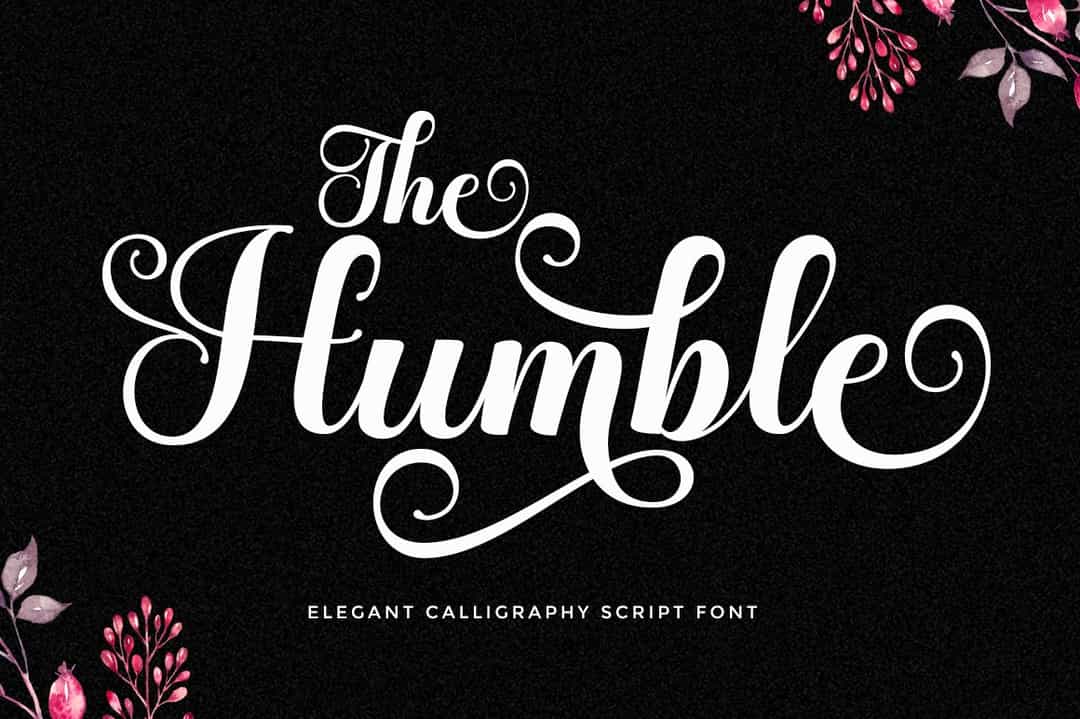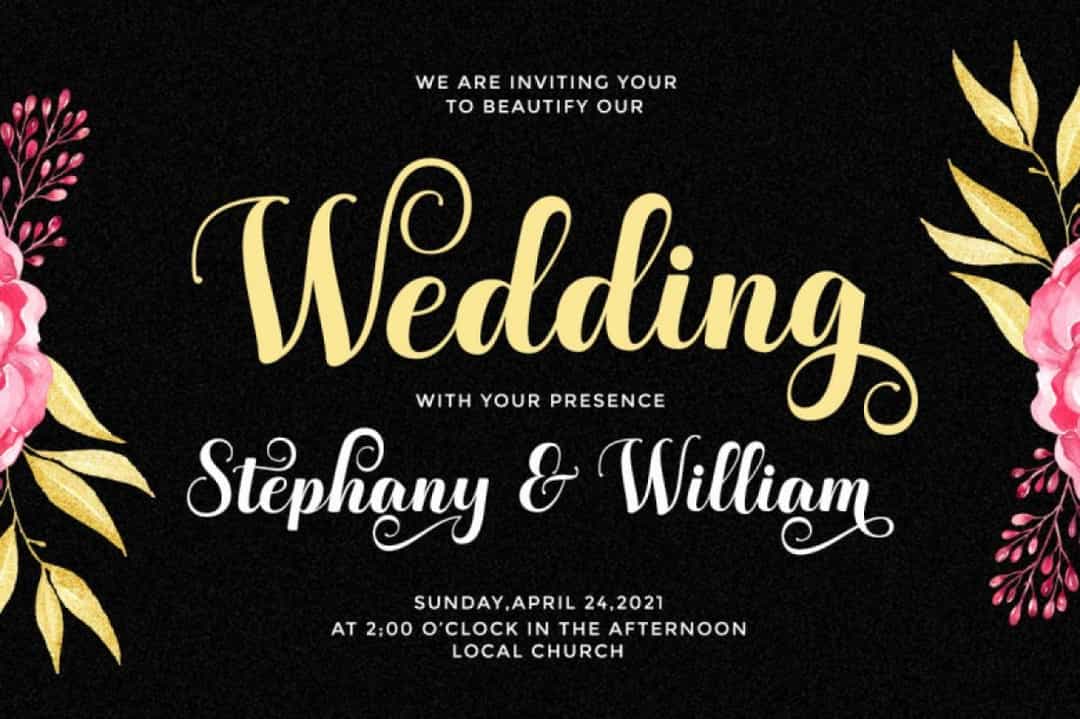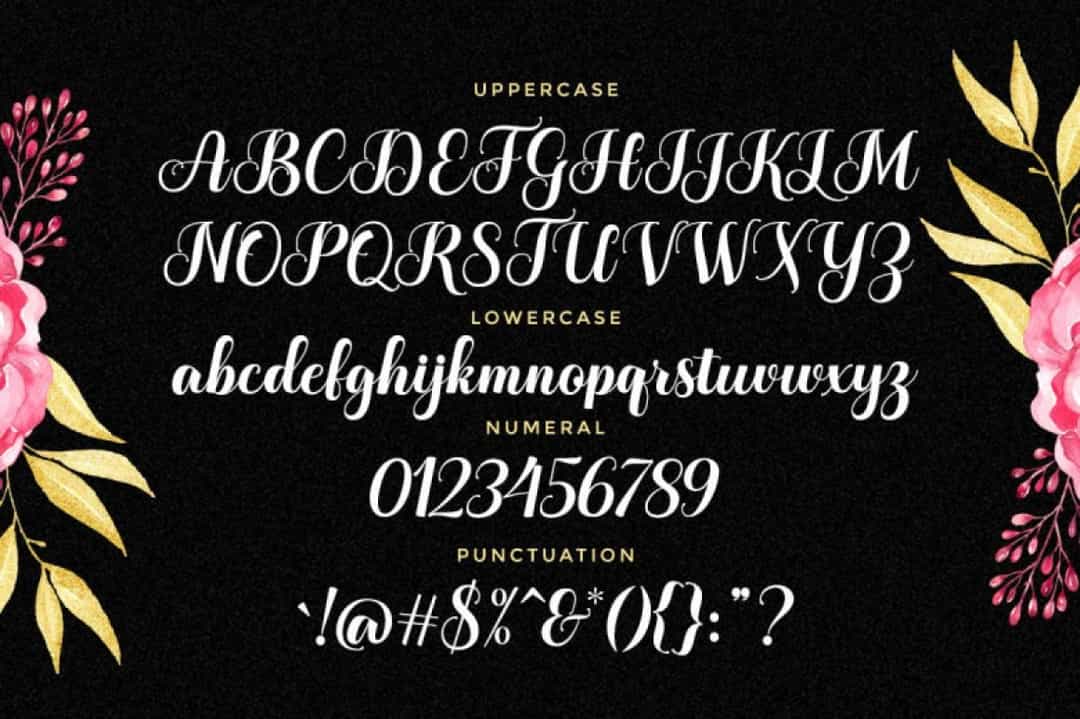
The Humble is an elegant script calligraphy font with classic and modern touches in its designs, drawing its inspiration from both copper calligraphy and handwriting styles. OpenType features include Stylistic Alternatives, Swash Ligatures and Stylistic sets allowing users to mix-and-match letter pairings according to personal taste as well as modern ornaments for an impressive, polished appearance.